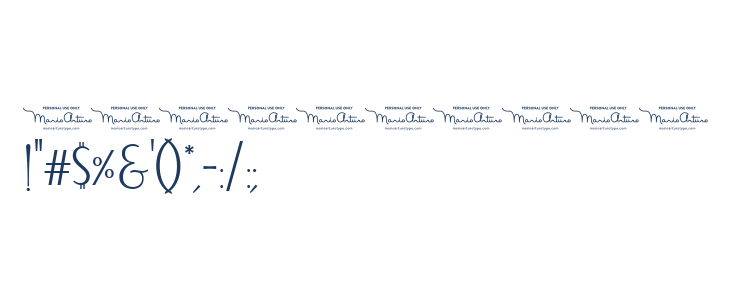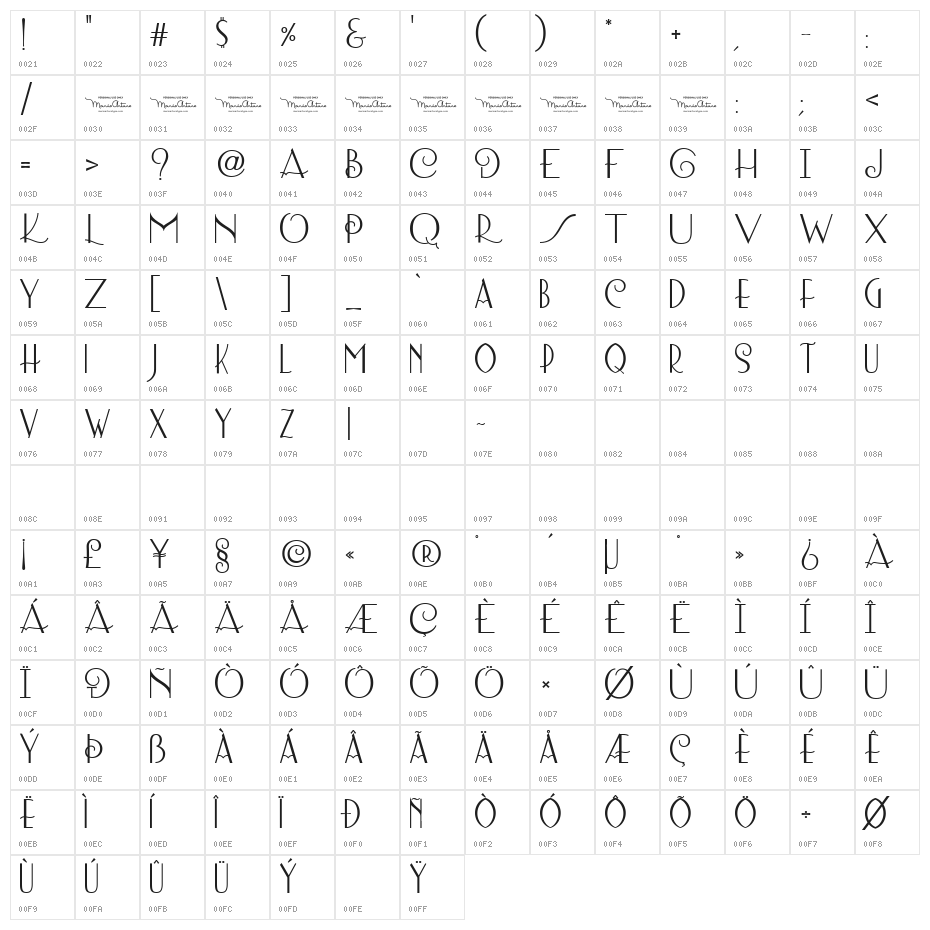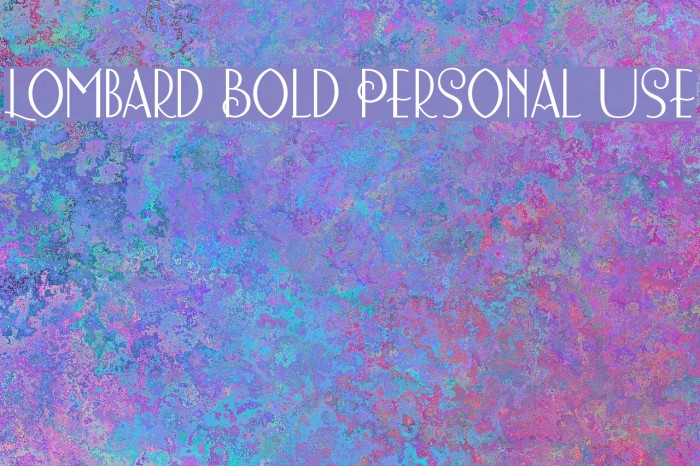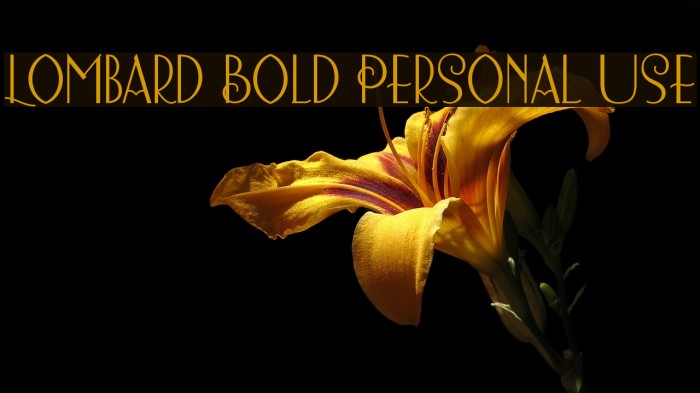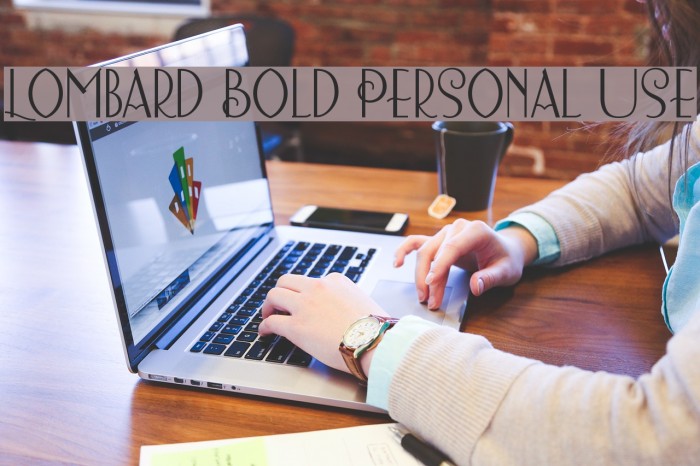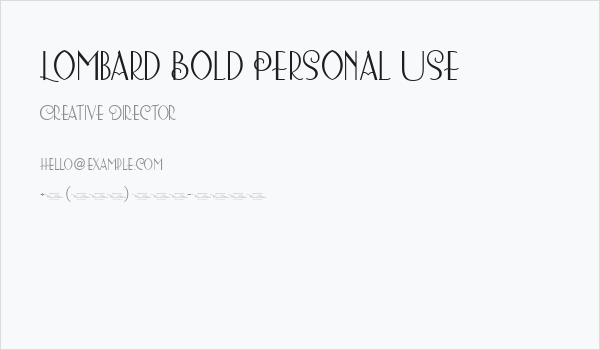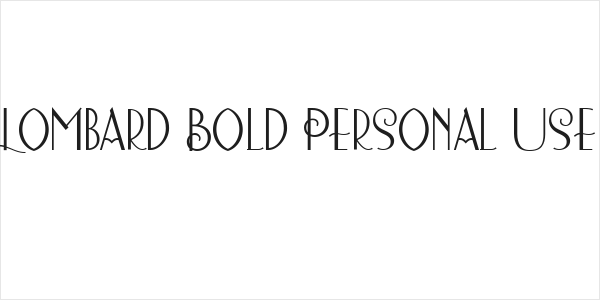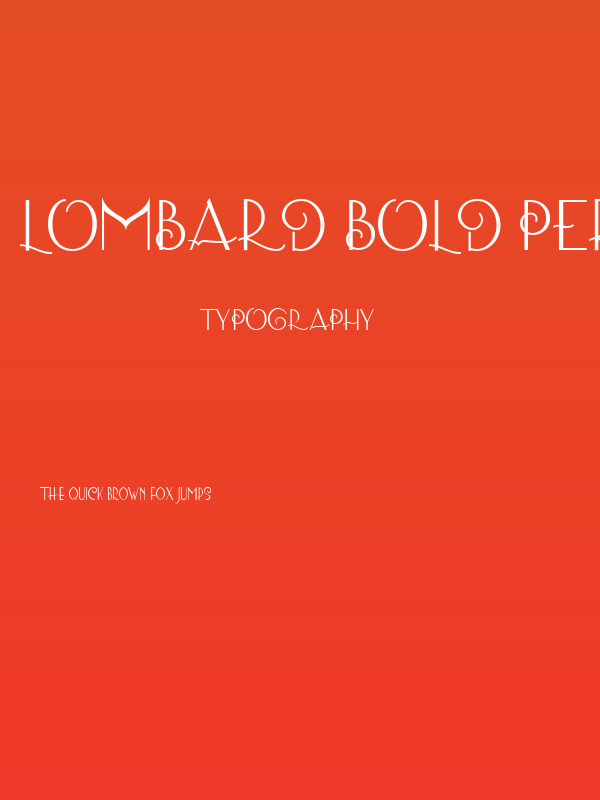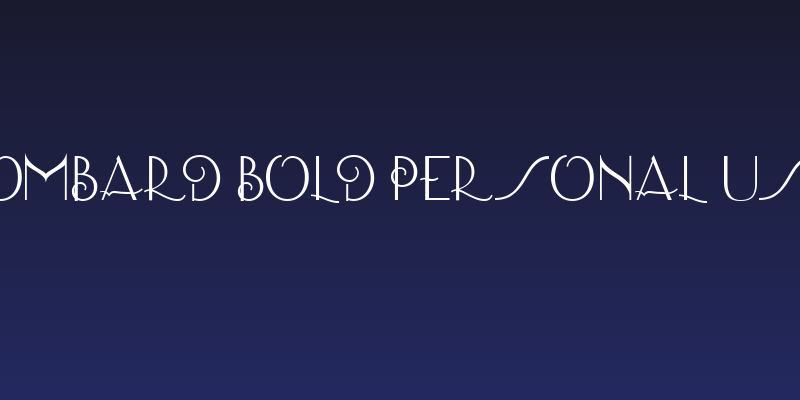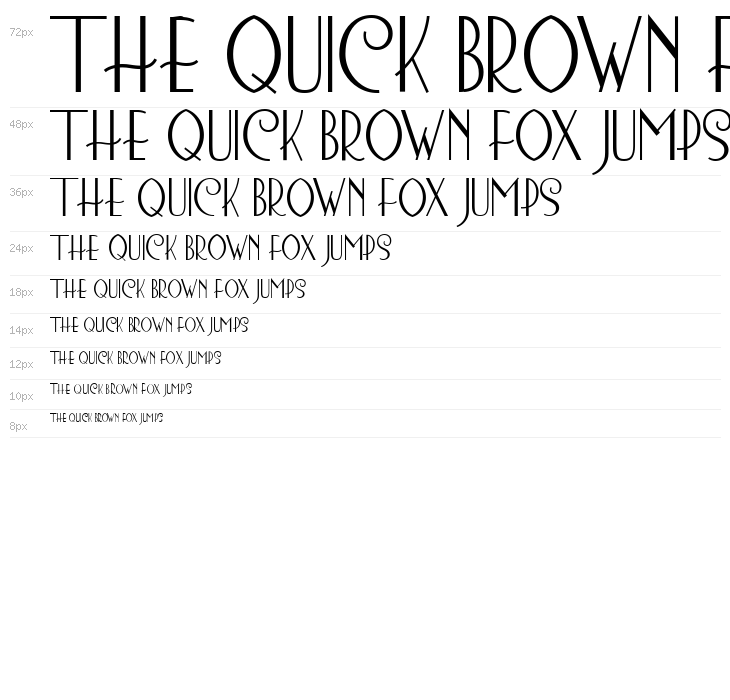
Lombard Bold Personal Use Font
Lombard Bold Personal Use Description
This font features a unique blend of elegance and modernity, characterized by its decorative and artistic flair. The uppercase letters exhibit a sophisticated style with intricate curves and flourishes, particularly noticeable in letters like 'A', 'B', and 'G'. The lowercase letters maintain a consistent design, offering a harmonious balance between readability and artistic expression. The numerals and special characters are crafted with the same attention to detail, providing a cohesive look across all glyphs. The font's overall appearance is both bold and stylish, making it suitable for a variety of creative applications.